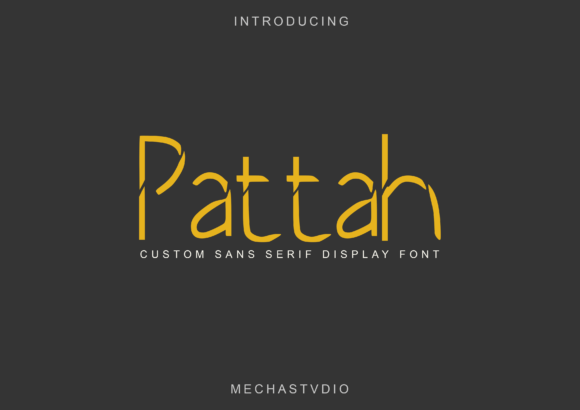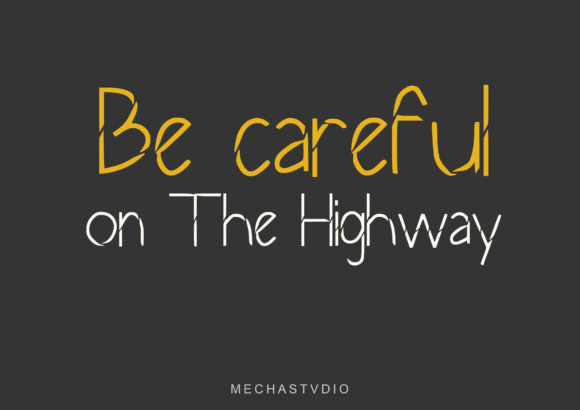
Pattah Font: Unique Display Font for Modern Logo Design
About the Pattah Font
From logos to headlines, the Pattah Font is the perfect choice for making a lasting impression. Pattah is a cool, simple, and unique display font perfect for logotype, branding, stationery, poster designs, social media posts, and more. Add it to your fonts library, and it will become your favorite in no time at all!
Pattah’s strong, geometric forms make it ideal for headlines, logos, and short, impactful statements across various media—from posters and social media graphics to packaging and branding projects. Its bold personality shines in applications requiring immediate visual attention. However, its condensed letterforms and limited character set make it less suitable for body text or long-form content, such as paragraphs or lengthy website copy.
Consider pairing Pattah with a clean sans-serif like Open Sans for readability in supporting text or a more delicate script font such as Great Vibes for a touch of elegance in invitations or branding materials where a softer counterpoint is desired. The contrast in styles creates visual harmony and prevents overwhelming the viewer.
Pattah projects a modern and confident aesthetic, best suited for brands emphasizing innovation, technology, or a minimalist approach. Avoid pairing it with overly ornate fonts; a clean and simple counterpart will best showcase its unique character.